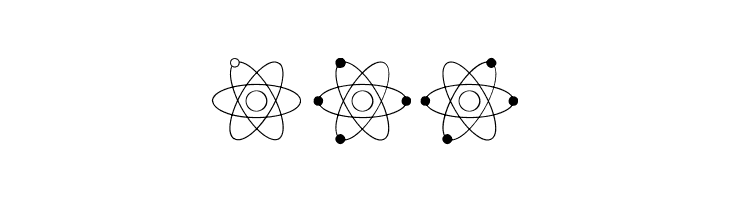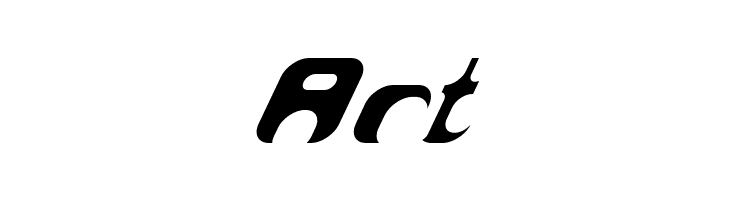
A modern, atomic-themed design with consistent symbols and a scientific aesthetic.
A futuristic, geometric font with bold, rounded shapes and unique cutouts.
A decorative and whimsical font with bold strokes and intricate details.
A retro-futuristic, geometric font with bold, angular characters.
A futuristic, geometric font with angular letterforms and a consistent stroke width.
A dot-matrix style font with a digital, retro aesthetic.
A bold, modern sans-serif font with clean lines and geometric structure.
A bold, distressed font with a textured, spray-painted appearance.
A bold, geometric font with a layered, futuristic design.